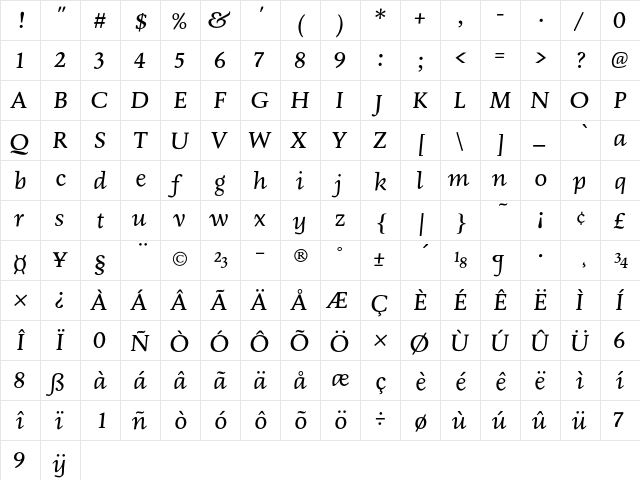
Economist101 Italic Font Preview
Economist101 Italic
Economist101 Italic Font Details
Design Context for Economist101 Typeface
Economist101 offers clean, dependable letterforms without strong stylistic allegiance, making it a practical choice for designers who need flexibility. Its italic angle brings a sense of urgency and motion to the letterforms.
Pro Tip: Try Economist101 for annotation and caption copy alongside an upright companion — the contrast in angle creates a dynamic but ordered typographic system.